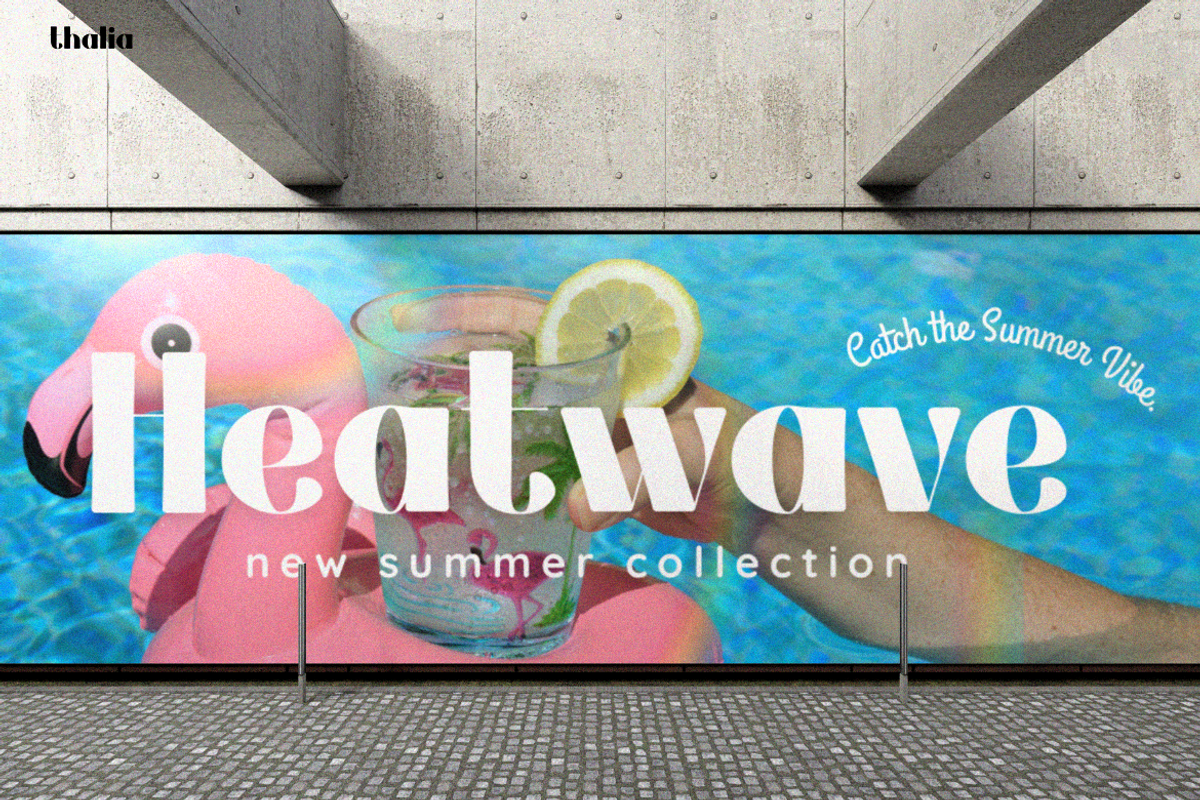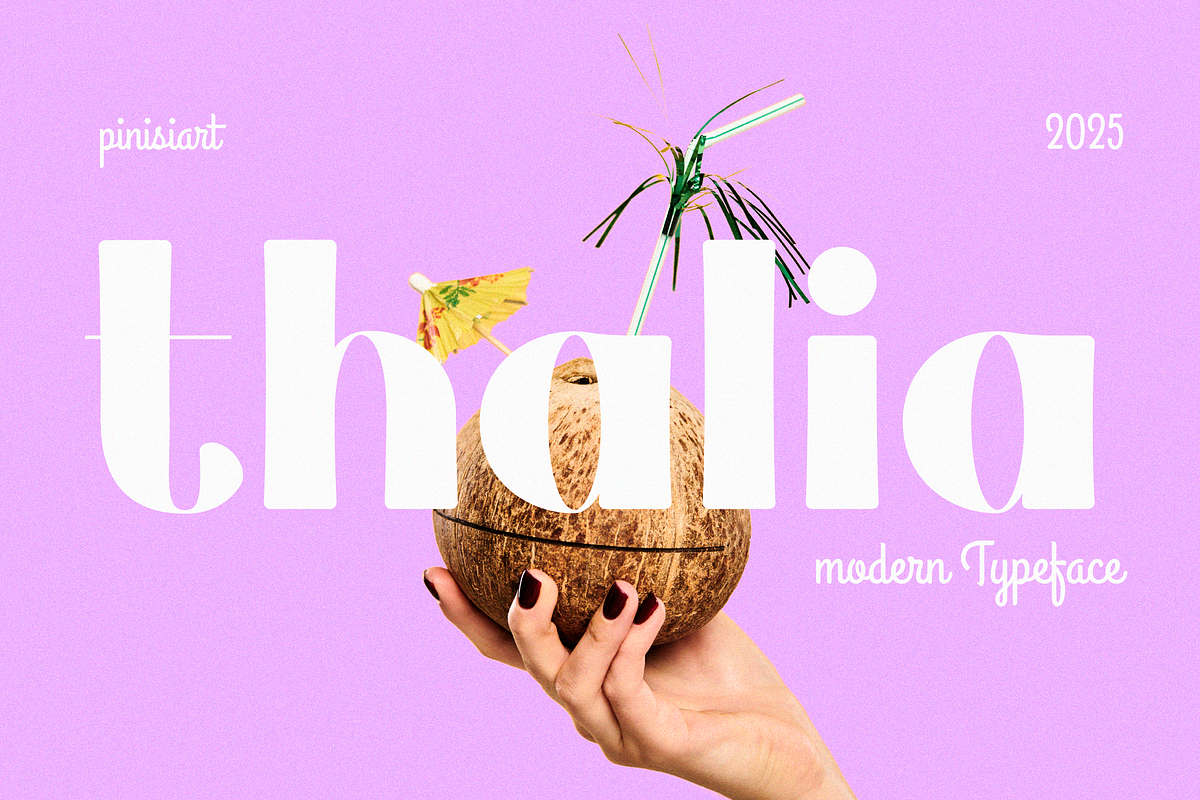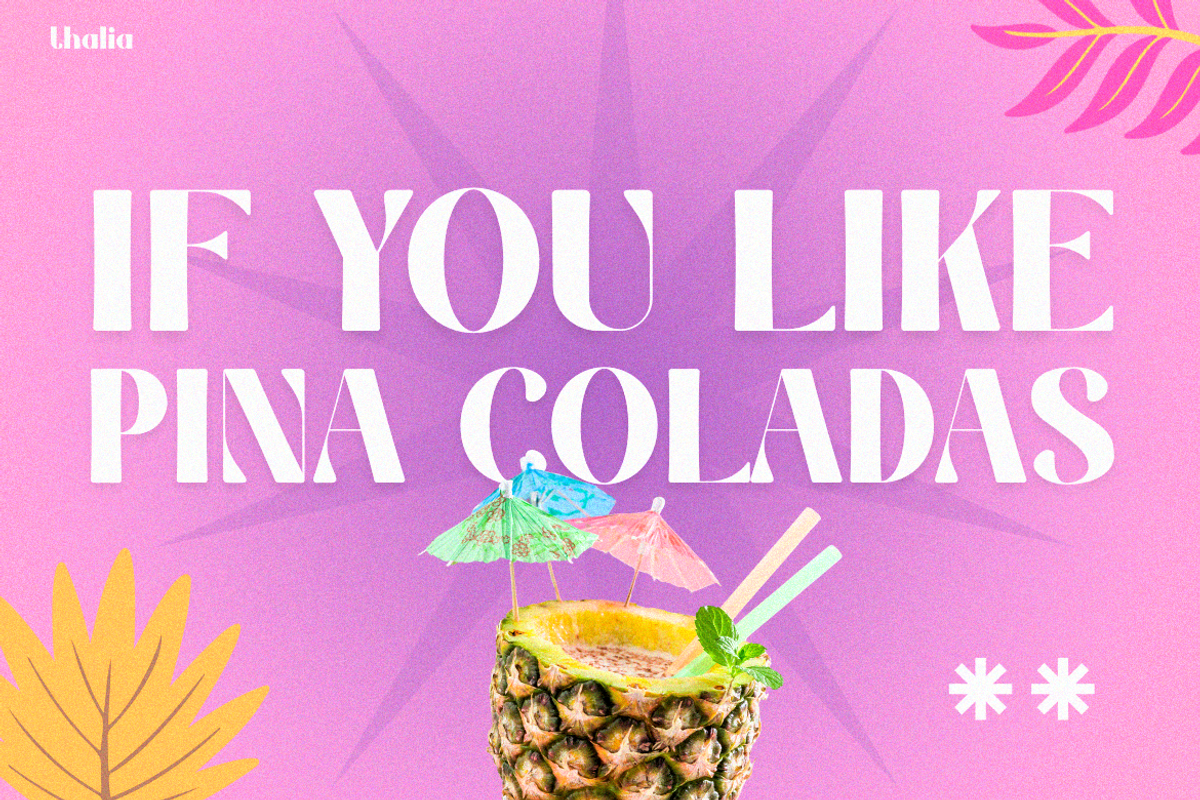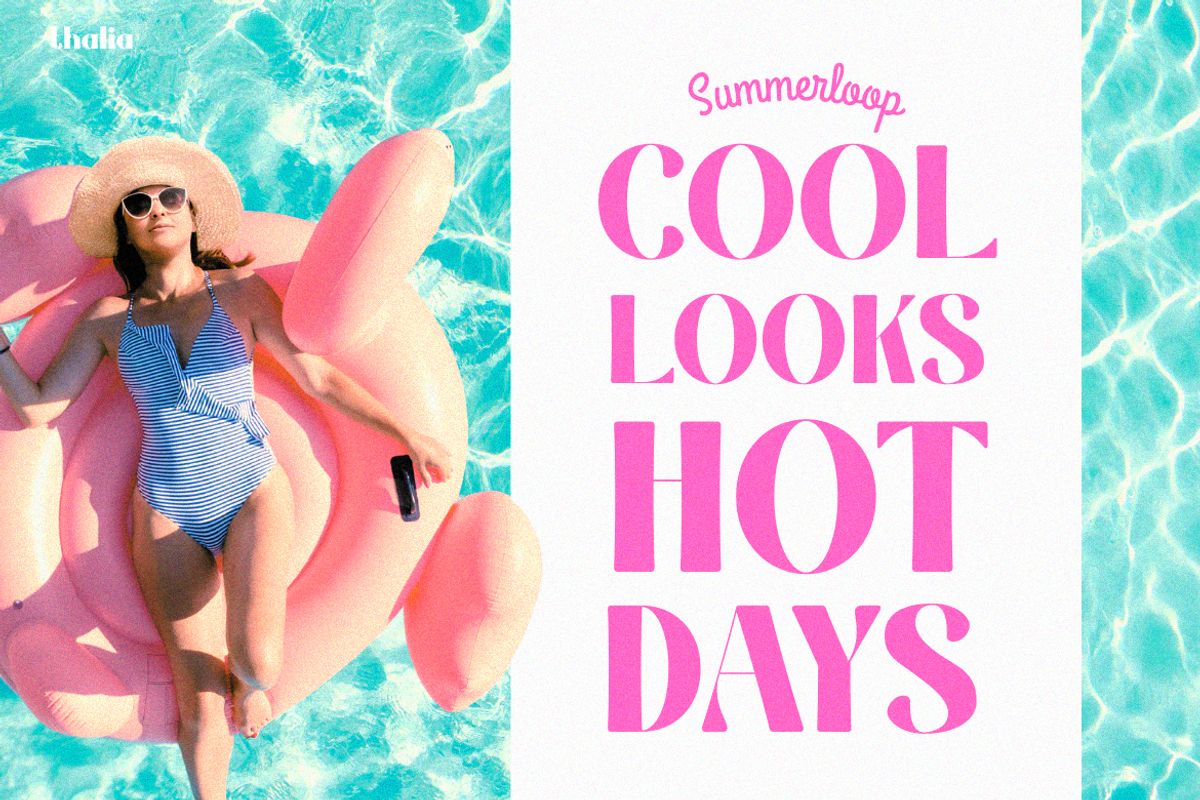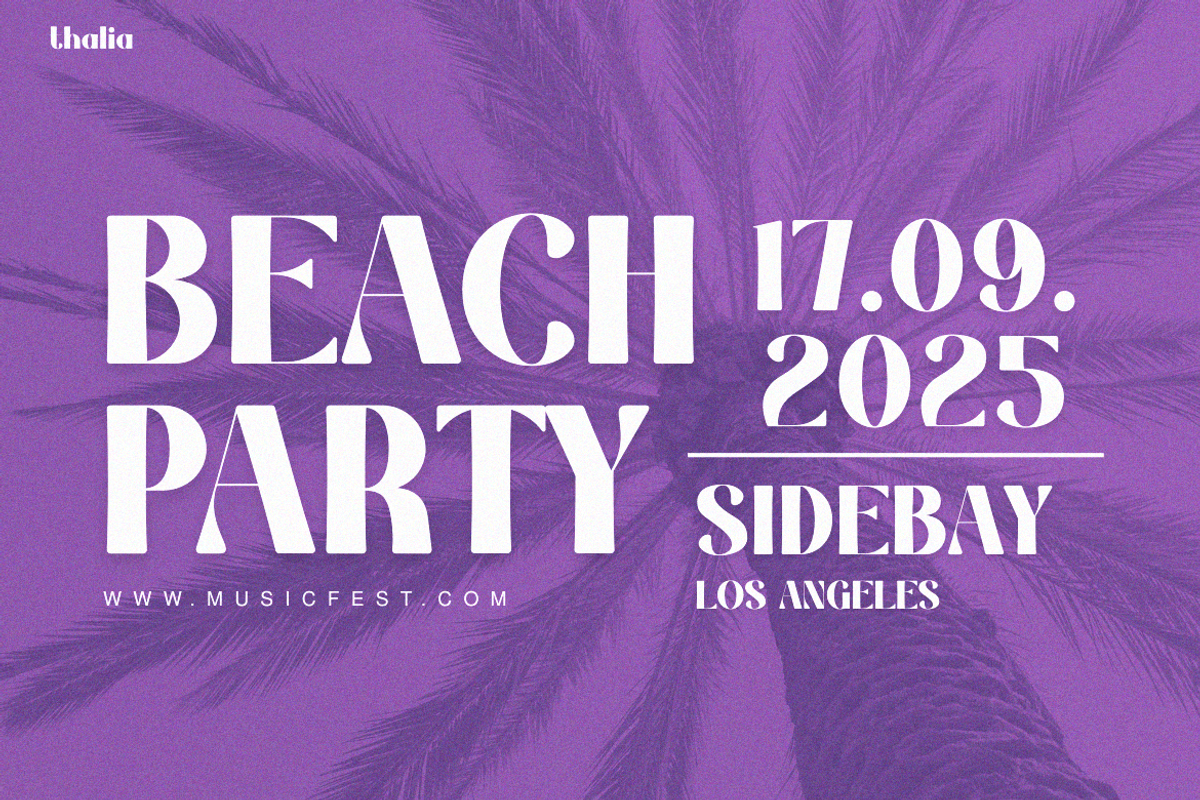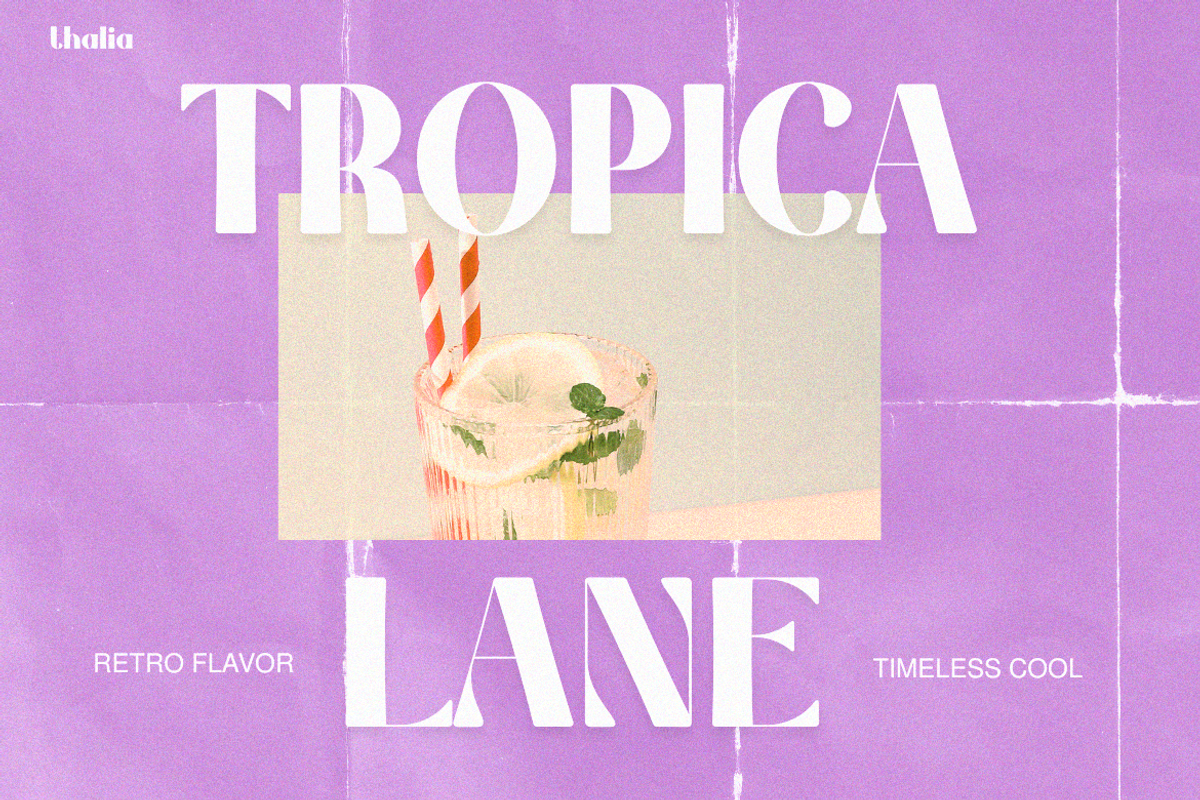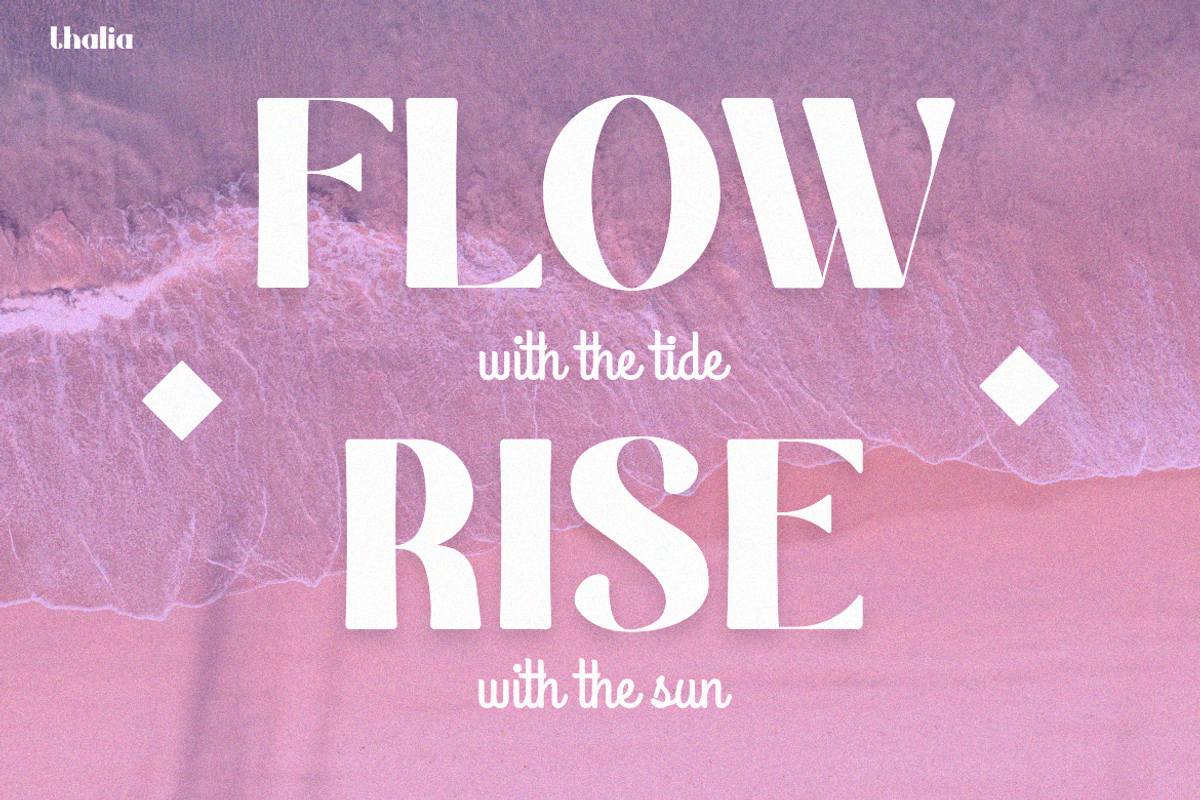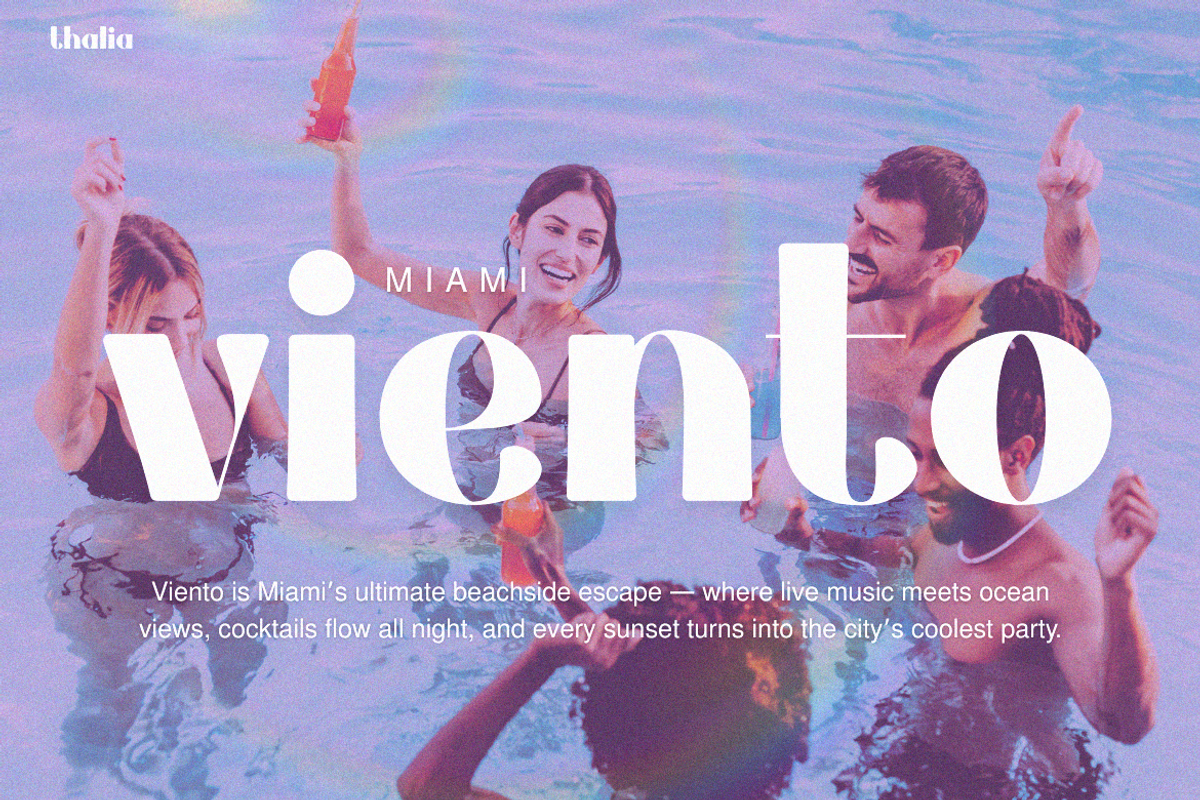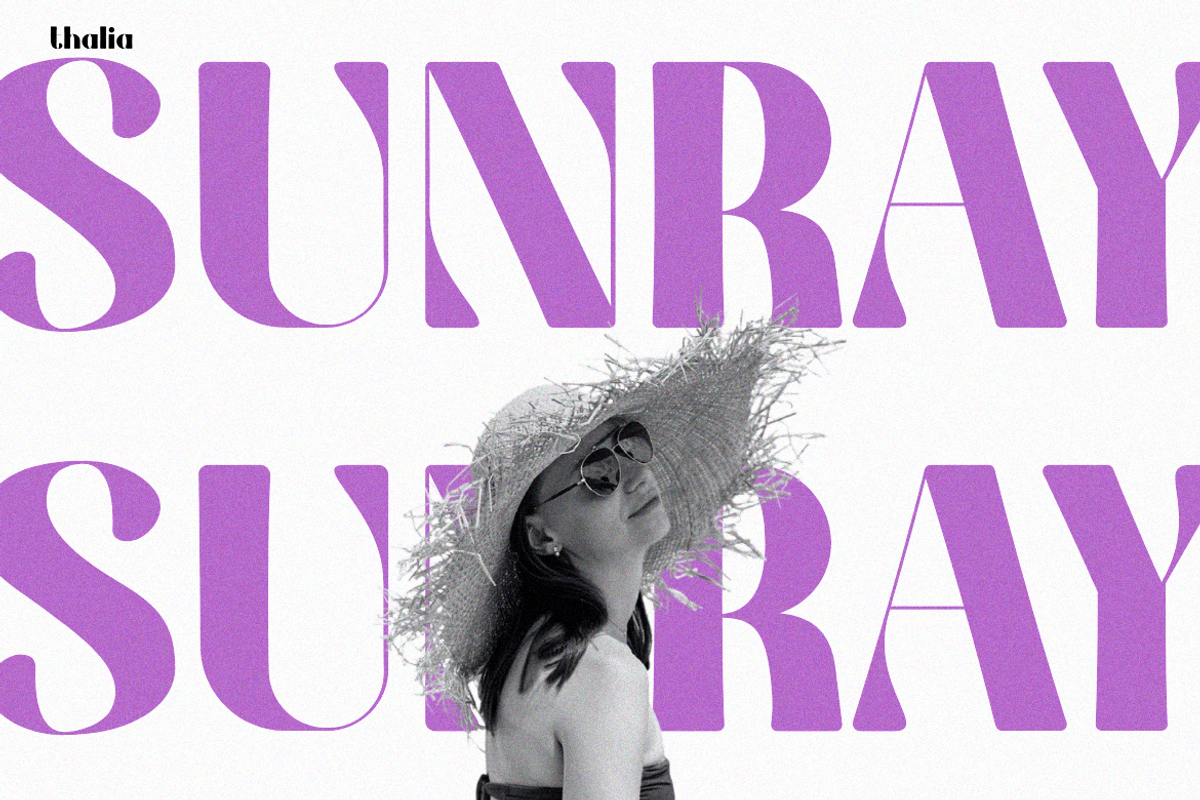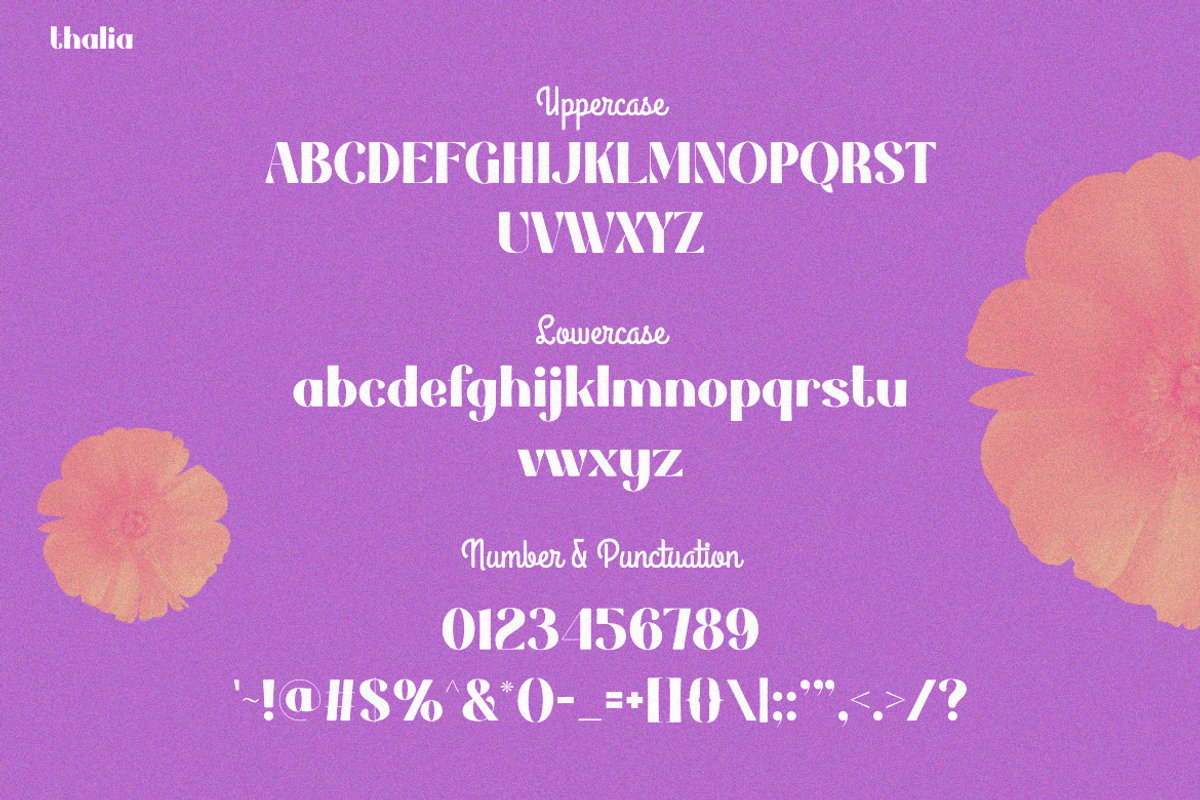
Thalia
Instagram Font Thalia – Make Every Word Unstoppable
Instagram Font Thalia isn’t just typography—it’s pure impact. With bold strokes, chic curves, and a stylish edge, this font commands attention the moment it hits the screen. Moreover, it’s loud without being messy, modern yet timeless, and playful while still radiating confidence. Every letter is designed to shine, giving your text the kind of energy that turns simple words into unforgettable visuals. Therefore, if you want your designs to scream style, Thalia is the ultimate weapon.